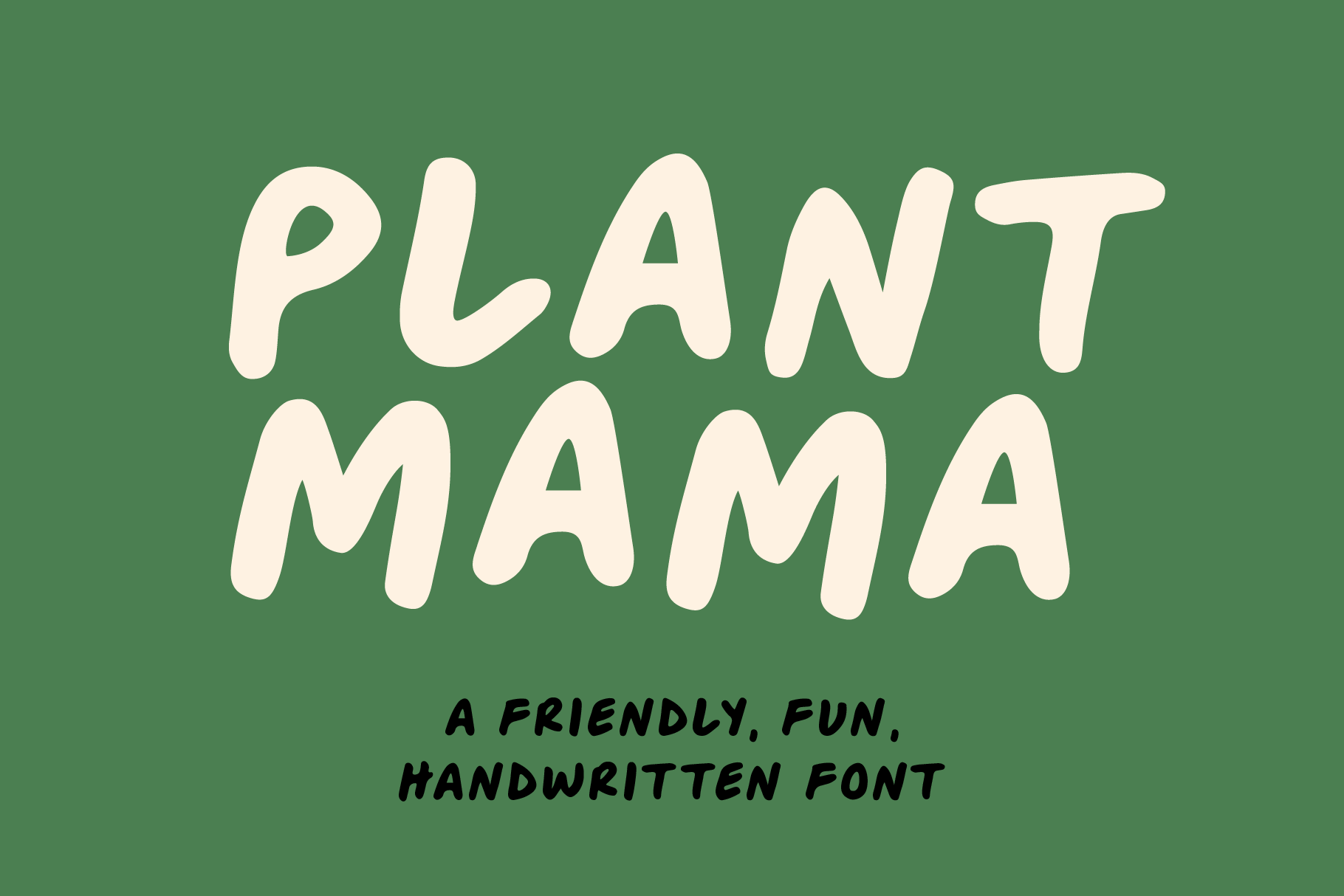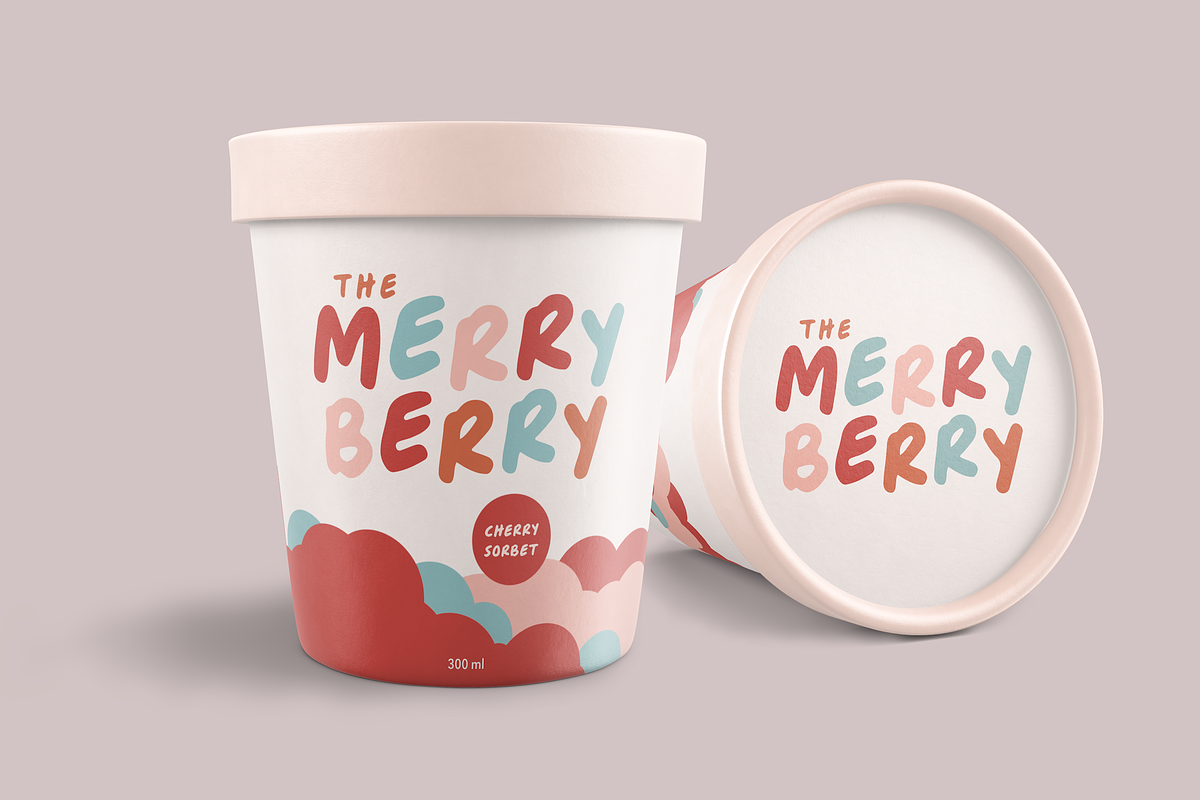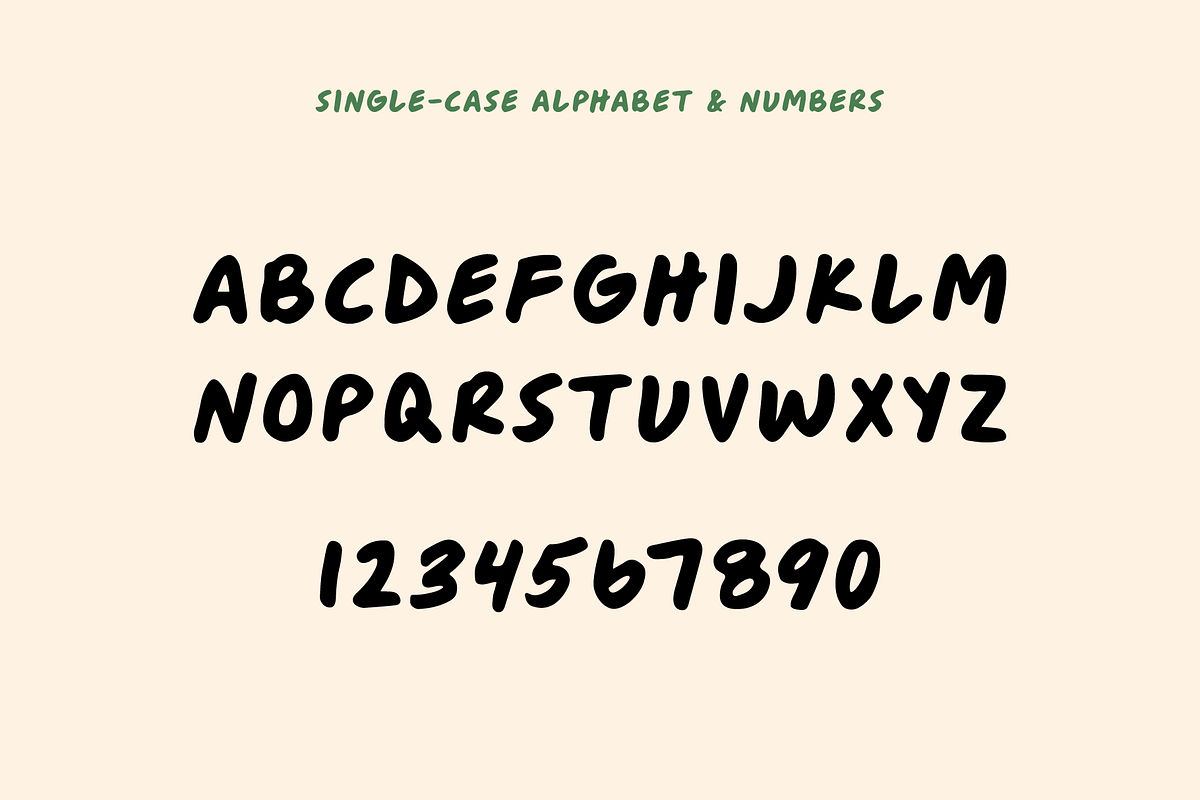
Plant Mama - Fun Handwritten Font
Plant Mama - A friendly, fun, handwritten font. Uppercase only!
Start smiling with Plant Mama. This font is perfect for designing playful branding, website layouts, packaging, editorial, etc. Its versatile sans serif style makes it great for both big bold titles and smaller body text.
- Uppercase Characters
- Lowercase Characters (SAME AS UPPERCASE CHARACTERS)
- Symbols & Punctuation
- Accented Letters
- Individual Kerning
Created by Leah Wolff of Wolff Design Co.
I've now used this font for both work presentations and personal use with great feedback. Such a unique and stylish design.
I adore this font — It is easy to read, fun and sophisticated at the same time. Brava to its designer Leah Wolff; I will certainly look for her other work!
The description is perfect for this font - it just makes you smile! It's so fun and playful, but also clear and easy-to-read. (Not always the case with fun fonts.) It's also versatile: I'll be using this both personally and professionally. The all-caps is another bonus - lends an air of professionalism, both creative and to the point. I can't say enough about this font. You just need to try it for yourself!